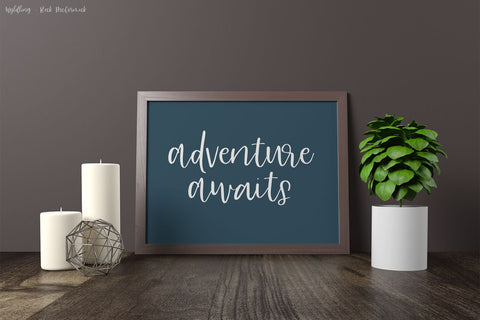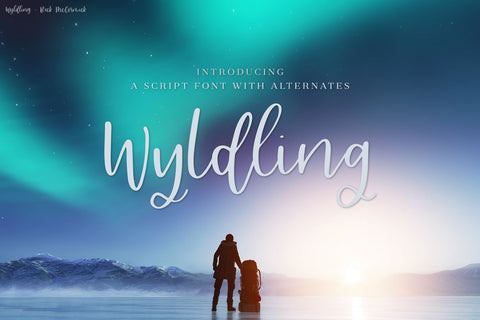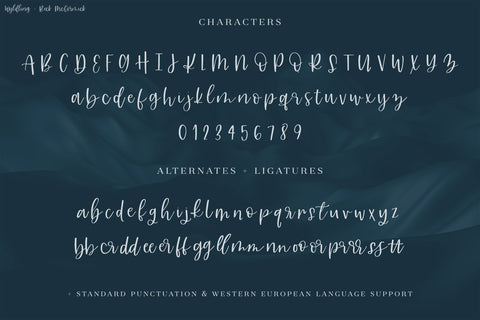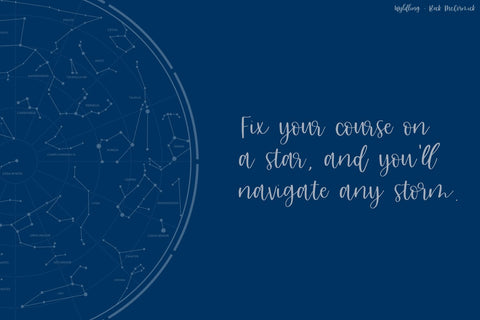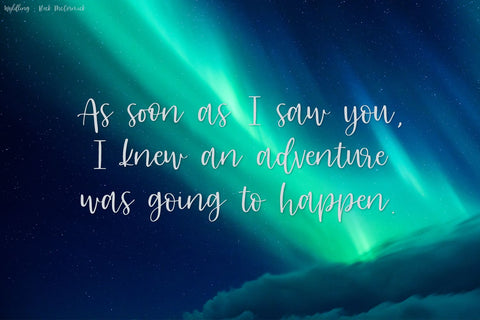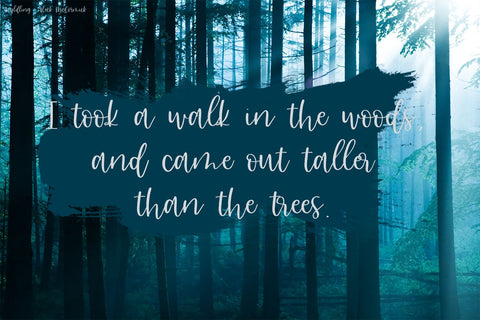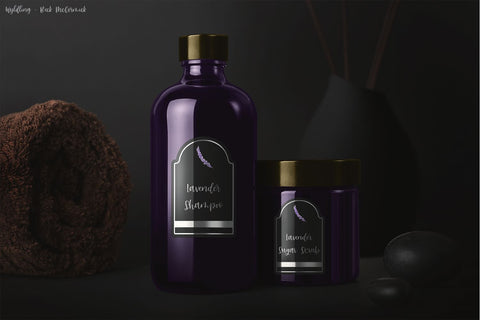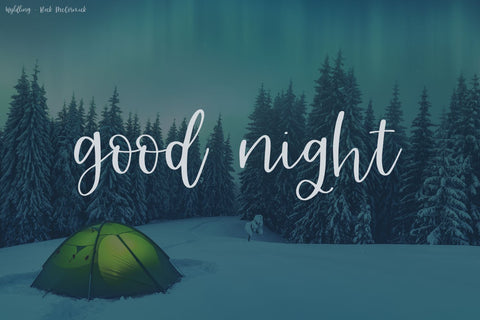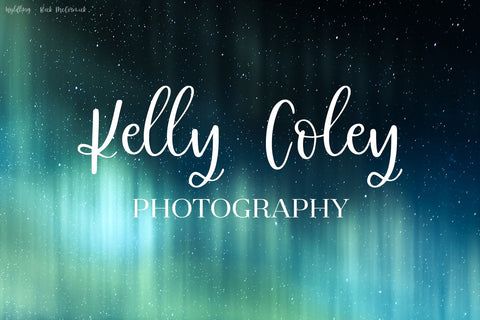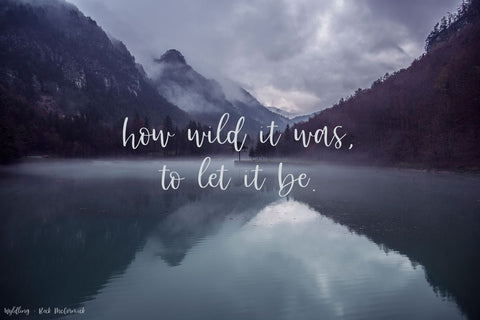
Wyldling Script Font
Meet Wyldling Script, a clean hand-lettered font with a little bounce.  It’s just a little feminine, and is very legible, making it a great fit for a wide variety of projects, especially crafting.
Wyldling Script is best for:
- logos + branding
- clean print design, like magazines + flyers
- header elements that need a feminine touch
- quote graphics for social media
- crafting projects - Wyldling’s smooth edge & clean lines will be perfect for vinyl cutting machines
Wyldling includes:
- full upper + lowercase characters
- numbers + punctuation
- Western European Language Support
- 26 lowercase alternate characters + common ligatures - bb, cr, dd, ee, er, ff, gg, ll, mm, nn, oo, or, pr, rr, ss, tt